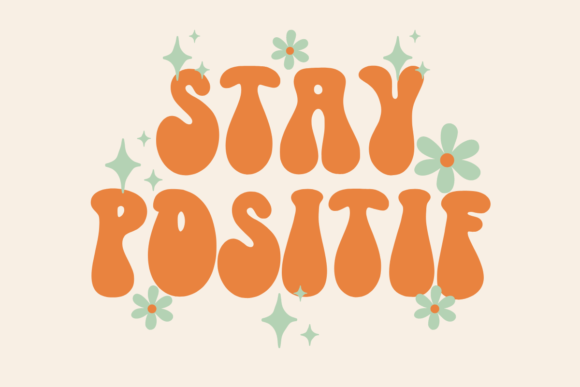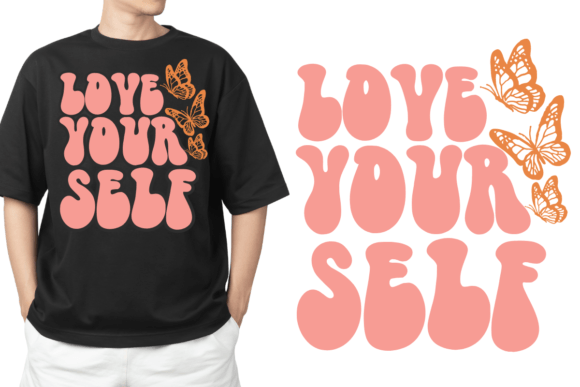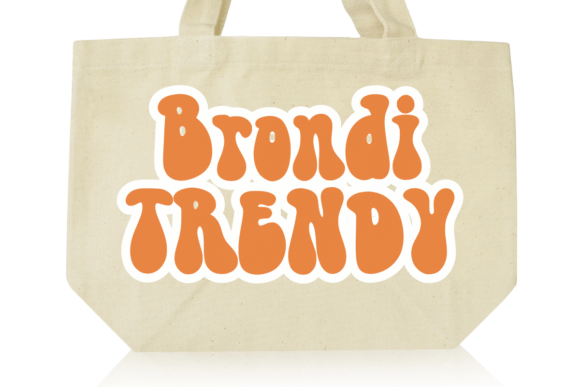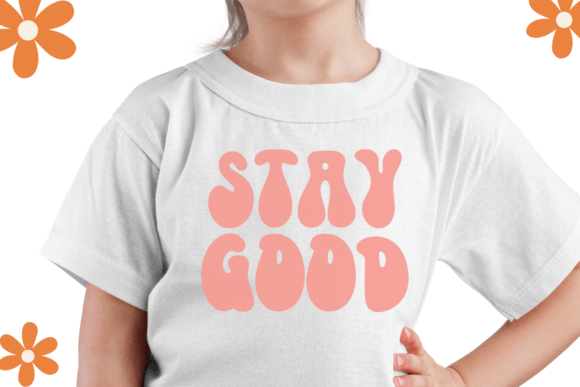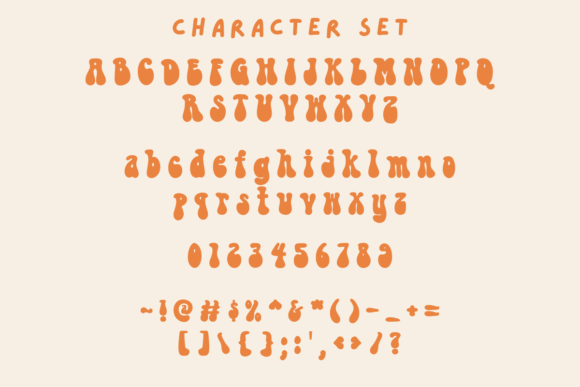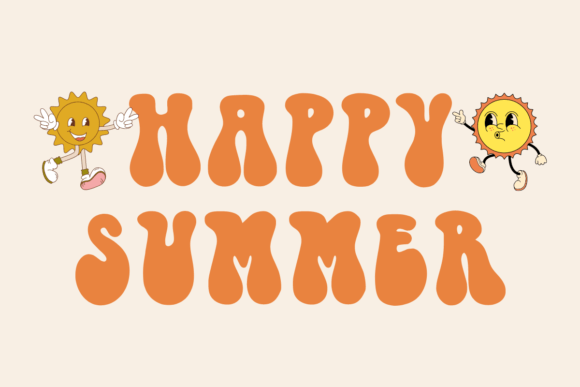
Introduction to Magic Soul Font
As a designer, there’s nothing quite like the rush of excitement that comes with discovering the perfect font for a creative project. You’re brainstorming ideas, sketching out rough drafts, and suddenly, it hits you – the perfect font to bring your vision to life. For many of us, that font is the Magic Soul Font. With its playful, retro vibe, it’s the perfect addition to any design that needs a cheerful accent.
Whether you’re designing a book cover, creating a poster for a local event, or crafting packaging for a new product, the Magic Soul Font is a valuable resource for designers. Its transparent background makes it easy to layer with other design elements, and its high quality ensures that it will look great at any size. And the best part? It’s available as a free download, making it an instant favorite among designers looking for a reliable design resource.
Key Features of Magic Soul Font
- High-Quality Design: Magic Soul Font offers a unique and creative font style, perfect for any design project that requires a touch of elegance and sophistication.
- Transparent Background: The Magic Soul Font comes with a transparent background, allowing designers to easily layer it over any image or color.
- High Resolution: The font is designed at a high resolution of 300 DPI, ensuring that it remains crisp and clear when used in large-scale designs.
- Size: The font includes a range of sizes, from 8pt to 72pt, providing designers with flexibility to use it in various creative projects.
- Perfect for Creative Projects: Magic Soul Font is ideal for use in logos, branding materials, posters, and other design elements that require a unique and eye-catching font style.
Honest Review: Magic Soul Font
I recently had the chance to work with the Magic Soul Font, and I must say, it’s been a pleasant experience. This font is perfect for those creative projects that require a touch of magic. With its unique design and high-quality texture, it’s sure to elevate your designs.
- ✨ High-quality texture that adds depth to your designs
- ✨ Perfect for creative projects that require a touch of magic
- ✨ Works well with a transparent background, giving your designs a clean and modern look
- ⚠️ Limited character set, which can be a problem for longer texts
- ⚠️ Not ideal for body text, as it can be difficult to read
Overall, I’m impressed with the Magic Soul Font. It’s a great design resource for those who want to add a touch of magic to their creative projects. While it has some limitations, it’s still a high-quality font that’s worth checking out. If you’re looking for a unique font to elevate your designs, I’d definitely recommend giving the Magic Soul Font a try.